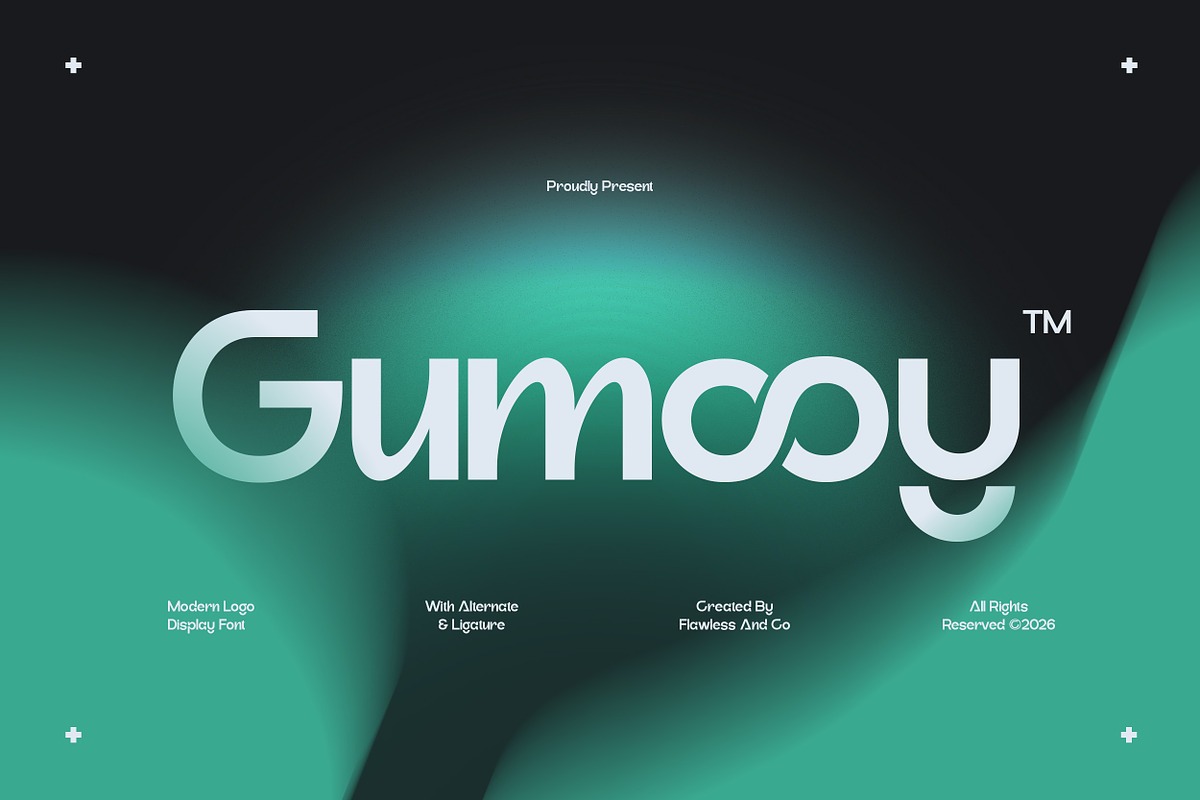
Gumooy – Modern Sans Serif Font
Gumooy – Modern Sans Serif Font is a flexible and reliable font created to fit multiple design needs, from branding and packaging to social media and editorial layouts. Gumooy is a modern sans display font that brings a fresh and stylish look to contemporary design projects. Designed with beautiful shapes and confident letterforms, Gumooy delivers a strong visual impact while maintaining a smooth and modern appearance. This font is perfect for designers who want a modern display typeface that feels both simple and distinctive. Its balanced structure and modern aesthetic make it highly versatile, allowing it to work beautifully across branding, editorial layouts, and promotional designs.